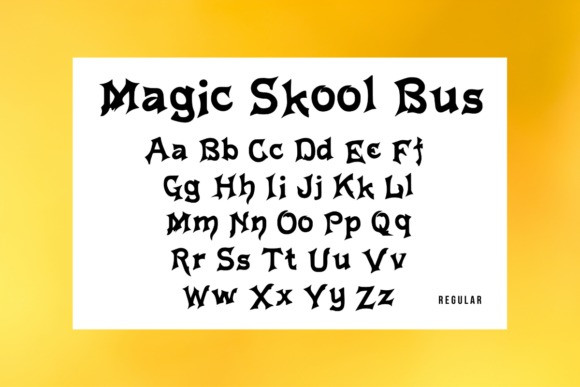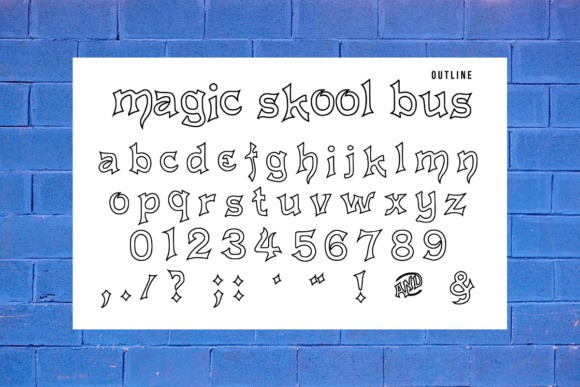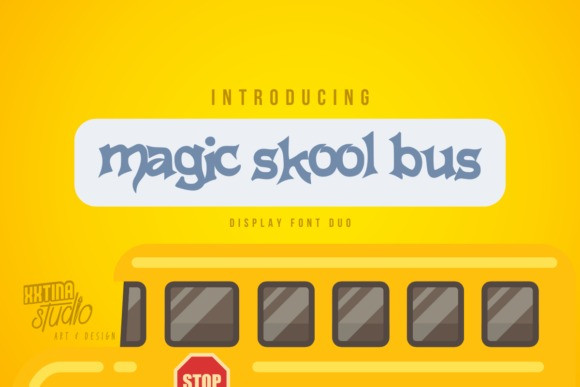
Magic Skool Bus Font
Magic Skool Bus Font is a decorative display font with signature pointy serifs. It contains 74 glyphs that includes characters in regular and outline. It’s the perfect font for creating book covers, advertisements, marketing materials, and other bold creative ideas!